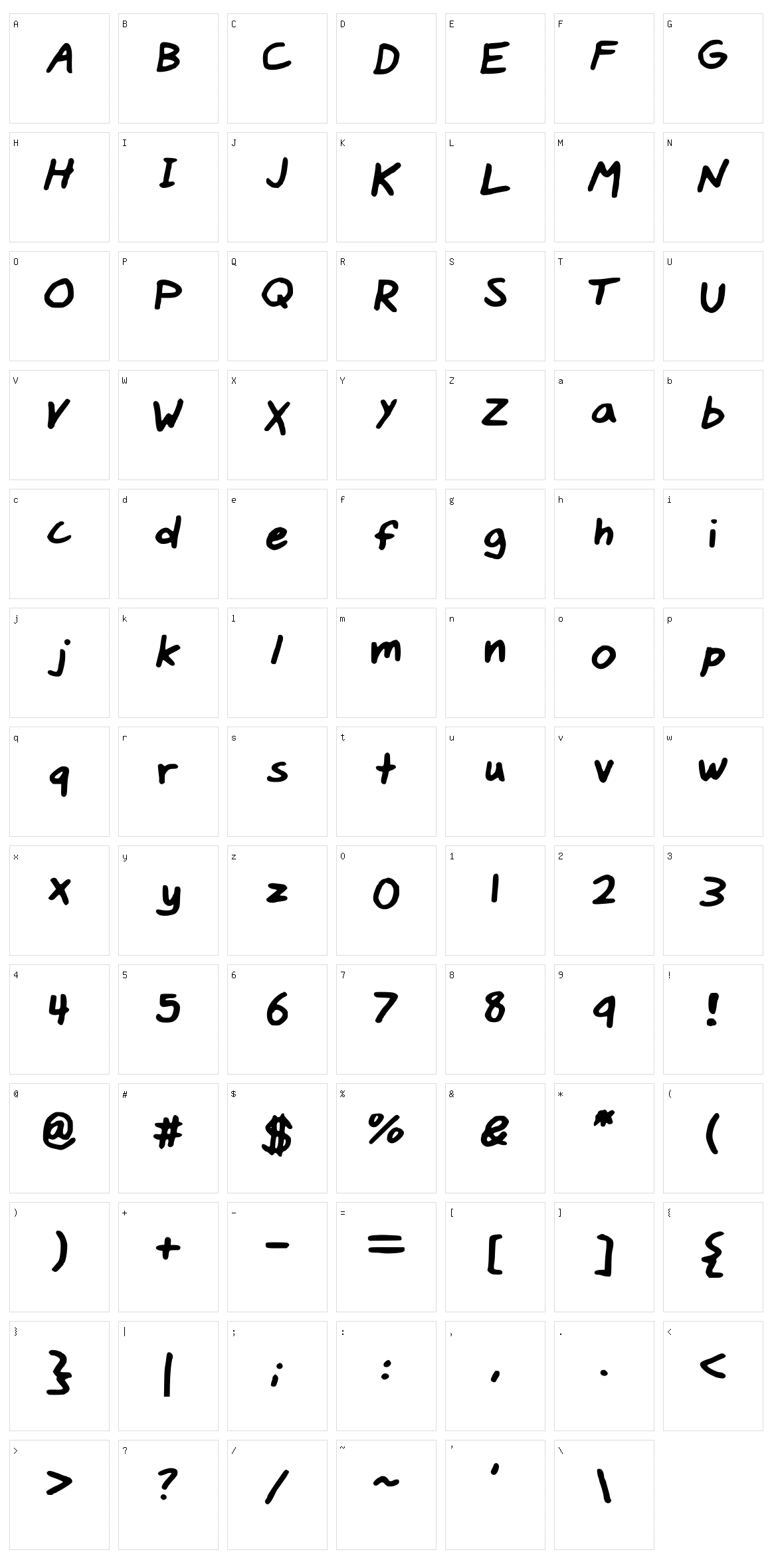
The free font Matts Handwriting is carefully designed by Matt Reed, showcasing a thoughtful balance of creativity and usability and falls under the Script font style. When you download the ZIP file, it contains only 20.2 KB of font files, making it lightweight and quick to download. Please review the license details below to understand permitted usage and distribution rights. If license information is not available, we recommend using this font for personal projects only or contacting the author directly for commercial usage permissions.